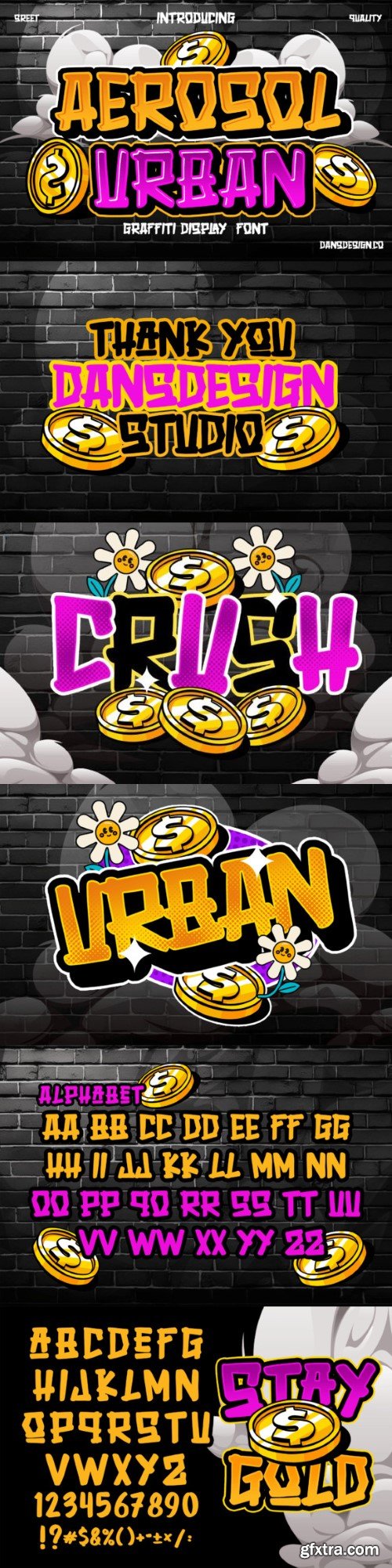
aerosol urban font
Aerosol Urban Modern Marker Graffiti Brush Font. It's a distinct and highly detailed display font. GRAFFITI Display Font. It would make a great choice for exquisite retro-urban designs, business branding, logos, apparel designs, and more.